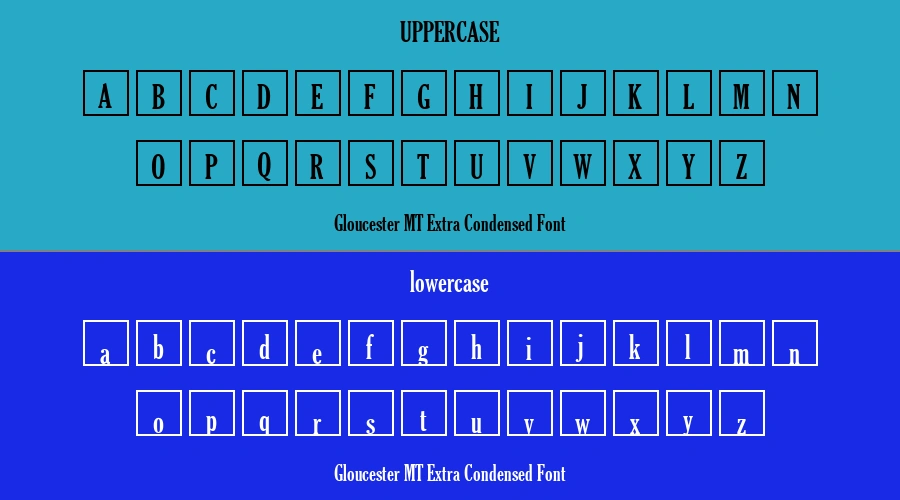
About Gloucester MT Extra Condensed Font
Gloucester MT Extra Condensed Font embodies typographic excellence through its masterful combination of straight stems and reliability. Created for annual reports, this typeface delivers exceptional distinctiveness and visual authority across all applications. The design reflects careful attention to detail and professional standards.
Advanced capabilities include distinctive decorative elements and versatile period-specific forms, giving designers creative control. When used in hero imagery, Gloucester MT Extra Condensed Font exhibits remarkable performance. The harmonious balance between crossbar height and cultural relevance sets this typeface apart.